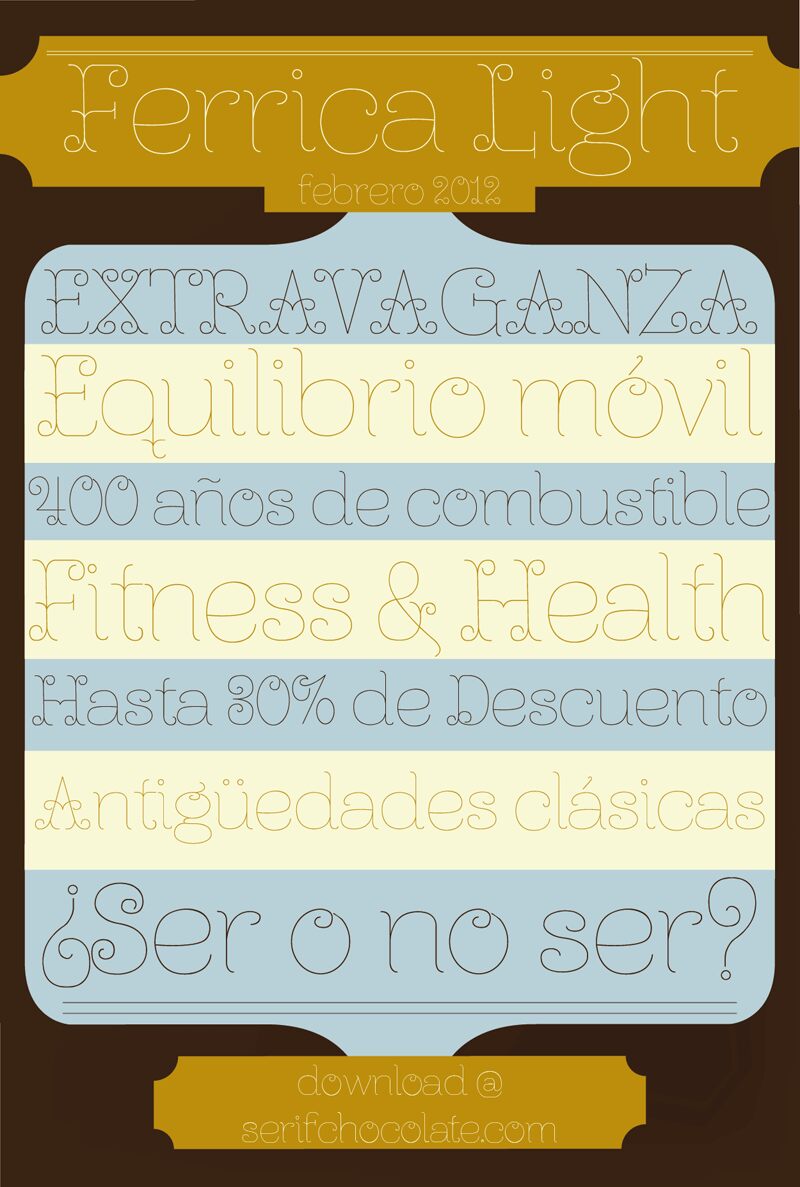
Ferrica Light by Fernando Carvente is a free curly display font with extremely fine strokes and tall, airy letterforms. Rounded loops recur at the tops and feet, turning simple lines into restrained ornament rather than dense decoration.
Designers working on fashion and beauty projects will find its delicate, slightly eccentric manner useful for branding and packaging. It also suits invitations and editorial covers with an elegant, whimsical direction. The clearest audience is boutique labels, salons, and event clients seeking lettering that feels graceful but knowingly unconventional.